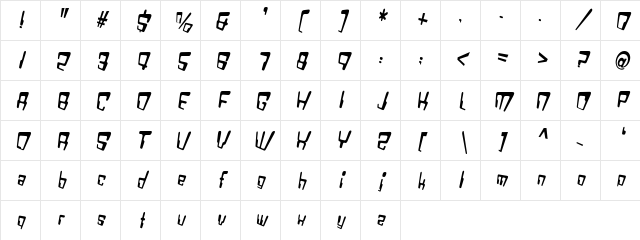
VTC Bad DataTrip Italic
Designer: WolfBainX
VTC Bad DataTrip Family
Complete VTC Bad DataTrip Italic glyph index. Displaying only characters natively supported by VTC Bad DataTrip Italic font.
Design Context for VTC Bad DataTrip
VTC Bad DataTrip is a composed and adaptable typeface that performs quietly and consistently across a wide range of design contexts. The slanted form adds forward momentum and visual energy.
Pro Tip: Use VTC Bad DataTrip for emphasis, pull quotes, and subheadings where its slanted energy can add rhythm to the layout.